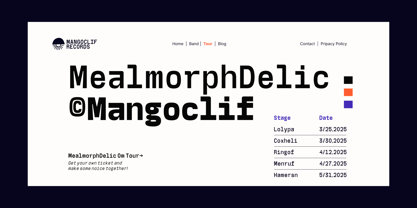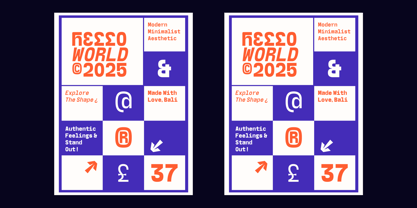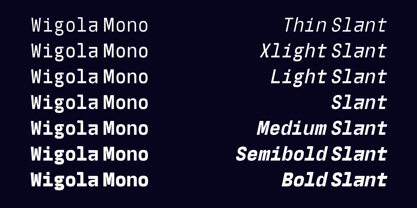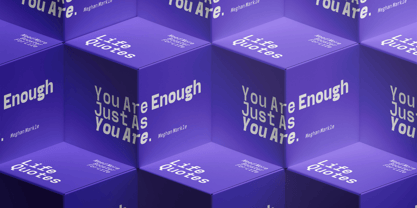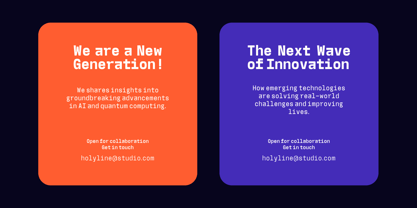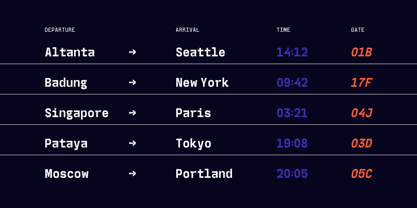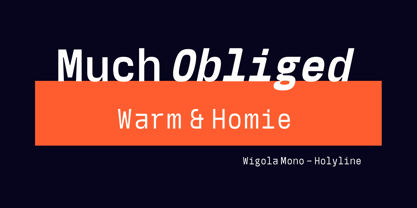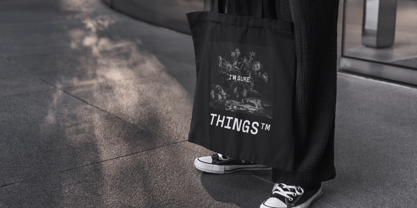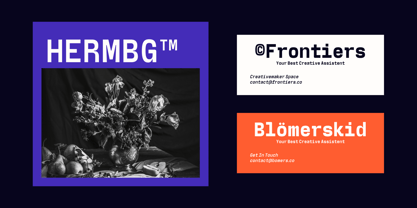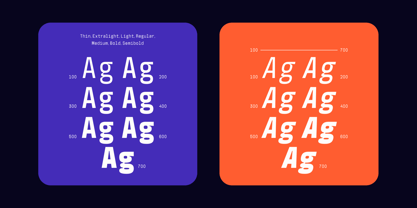
Wigola Mono
by holyline design
The Wigola Mono Font Family was designed by Bagus Beratha Wijaya and published by holyline design. Wigola Mono contains 14 styles and family package options.
Wigola Mono is a sleek and versatile monospace sans serif font, blending the precision of computer screens with the timeless appeal of grotesk and modernist design styles. Its clean, structured form makes it a perfect choice for both technical and creative applications.
With 7 weights ranging from thin to bold, and matching slant styles for each weight, Wigola Mono offers a total of 14 fonts. This comprehensive range provides designers with the flexibility to create dynamic layouts that balance functionality and aesthetic appeal. Ideal for tech-inspired designs, coding visuals, editorial layouts, and branding, Wigola Mono brings a modern edge and structured elegance to any project.